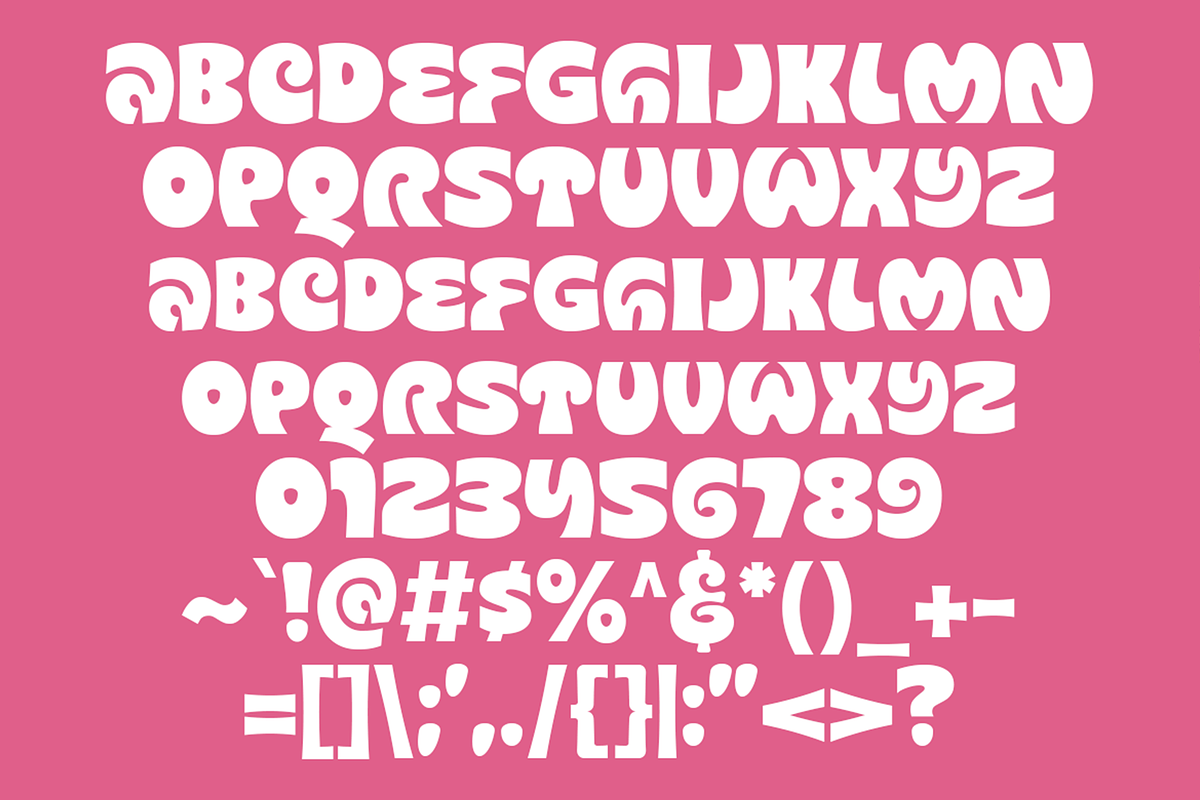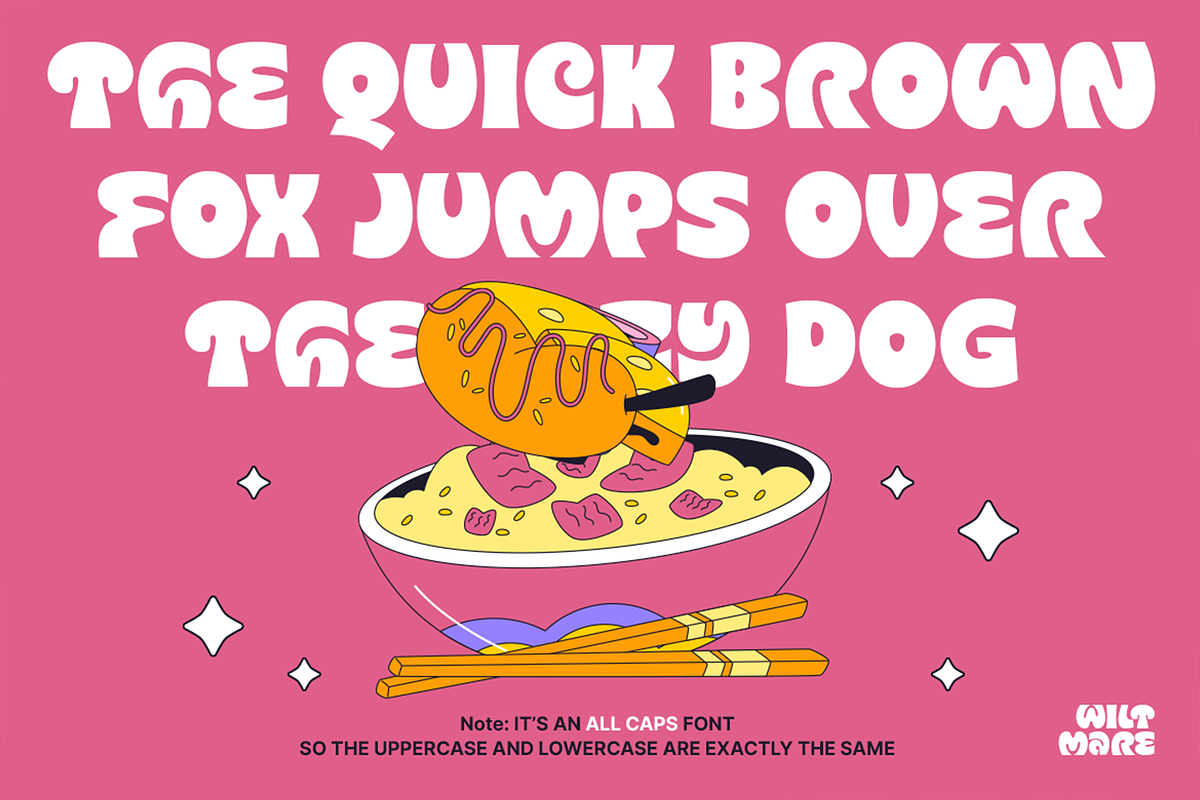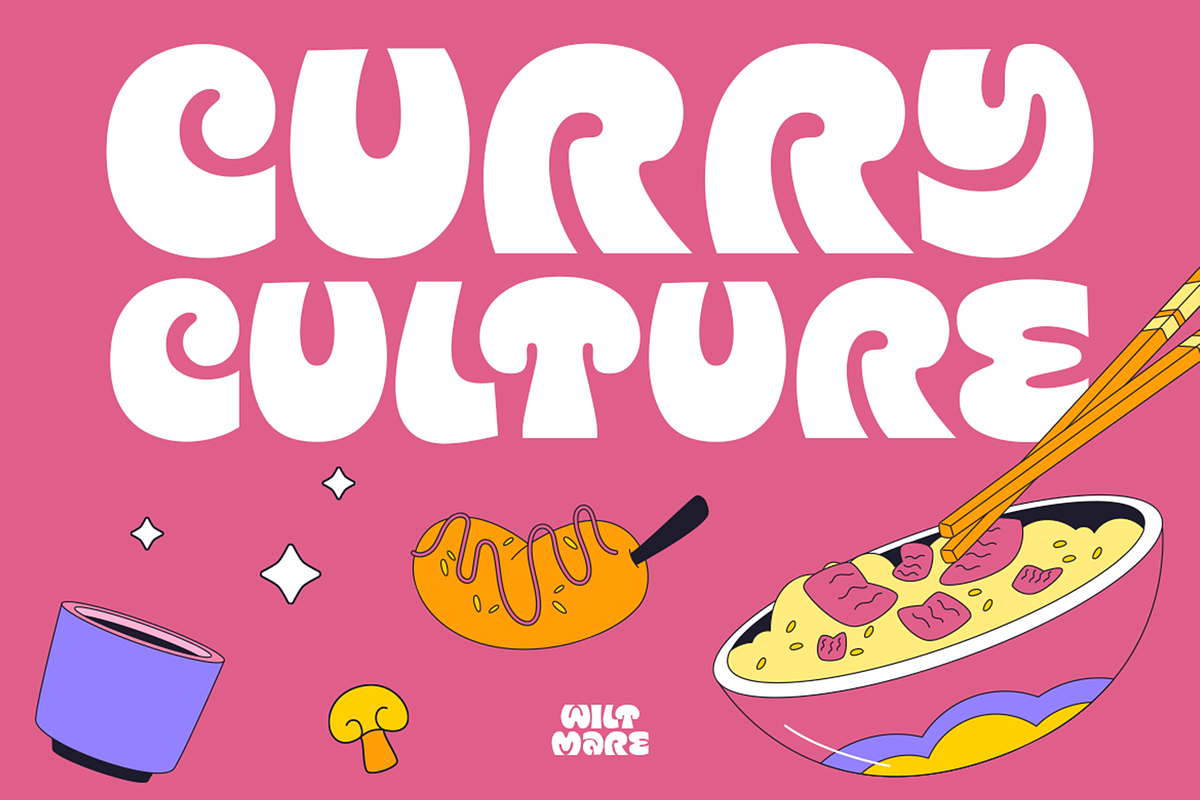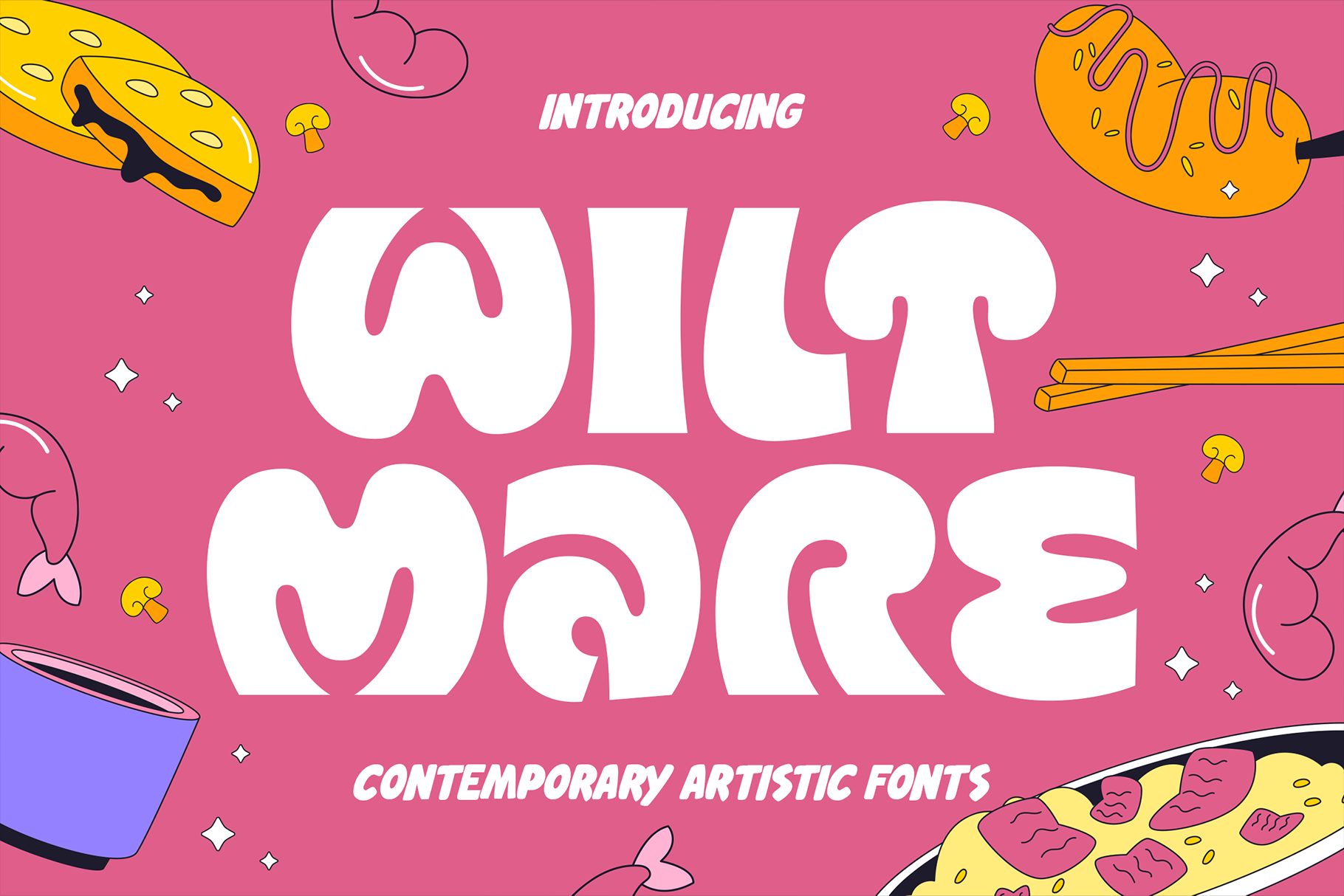
Wiltmare - Pop Cuisine Fonts
Unleash the Fun with Wiltmare: The Quirky, Pop-Cartoony Font That's a Feast for the Eyes!
Looking for a typeface that's as vibrant and playful as your brand? Introducing Wiltmare, the revolutionary new font designed to infuse your projects with an irresistible dose of pop-cartoony charm! Inspired by the whimsical and the wonderful, Wiltmare is more than just a font; it's a personality, a statement, and a guaranteed smile-maker.
What Makes Wiltmare Uniquely Delicious?
Mushroom-Inspired 'T': Our standout feature! The iconic 'T' in Wiltmare boasts a delightful cut inspired by the organic elegance of a mushroom. This subtle yet distinctive detail adds a touch of quirky sophistication, making your text truly memorable.
Pop-Cartoony Aesthetic: Wiltmare is a celebration of all things fun and funky. Its bold, rounded forms and energetic rhythm evoke the joyous spirit of classic cartoons and modern pop art, making it an instant eye-catcher.
Versatility Redefined: While its playful nature shines brightest in food and beverage branding, Wiltmare's adaptability knows no bounds.
Food & Beverage Branding: Perfect for restaurant menus, food packaging, cafe logos, and snack promotions that crave a fresh, approachable, and mouth-watering look.
Pop Events & Festivals: Elevate your event posters, flyers, and social media graphics with a font that screams excitement and good times.
Retro Design Projects: Channel vintage vibes with a modern twist. Wiltmare effortlessly blends nostalgic charm with contemporary cool, ideal for retro-themed campaigns and products.
Children's Books & Toys: Create engaging and friendly visuals that captivate young audiences.
Social Media Graphics: Make your posts pop! Wiltmare ensures your content stands out in a crowded feed, driving engagement and brand recognition.
Merchandise & Apparel: Design unique t-shirts, tote bags, and other merchandise that exudes personality.
And So Much More!: From quirky websites to lively animations, Wiltmare is your go-to font for any project that needs a touch of lighthearted creativity.